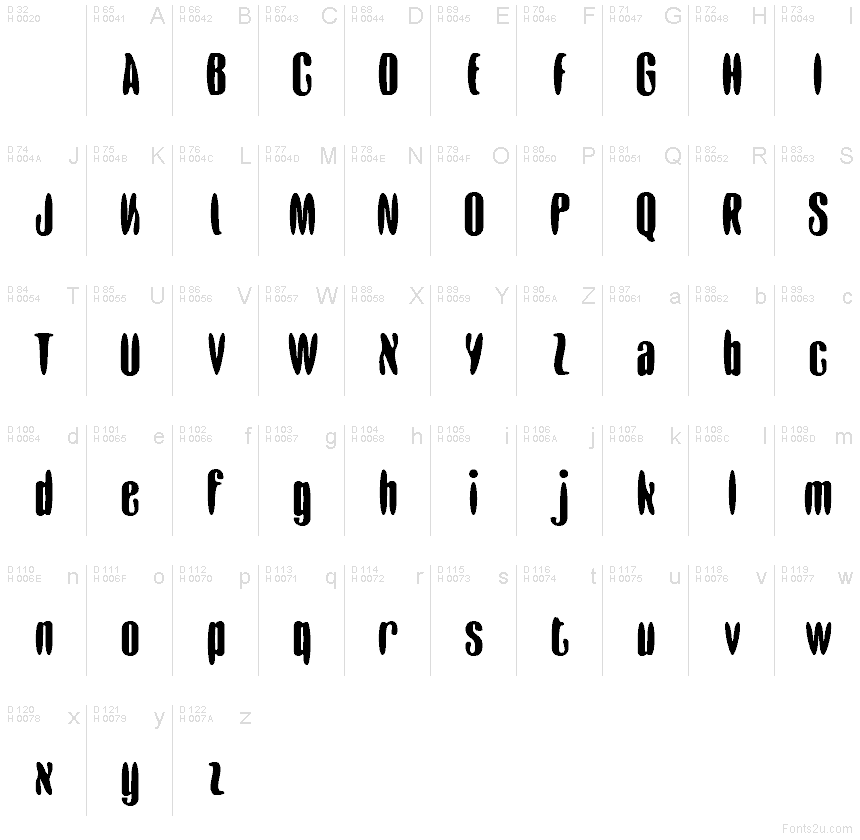
CSBridgerDrawn-Regular Demo
CS Bridger Drawn font by Craft Supply Co. combines retro aesthetics with a modern flair, featuring rounded forms and a playful vibe. This free display font exudes a nostalgic feel in its distorted style, bringing out the best of both old-school charm and contemporary design. A widened appearance and condensed width mimic an exaggerated comic-style look in the letters.
Whether it's used for comics, children’s activity books, logos, posters, or titles; it stands out on all fronts! Use CS Bridger Drawn for invitations to give a dose of excitement or enhance project title pages with versatile attributes that hinge on distinctive lively originality!